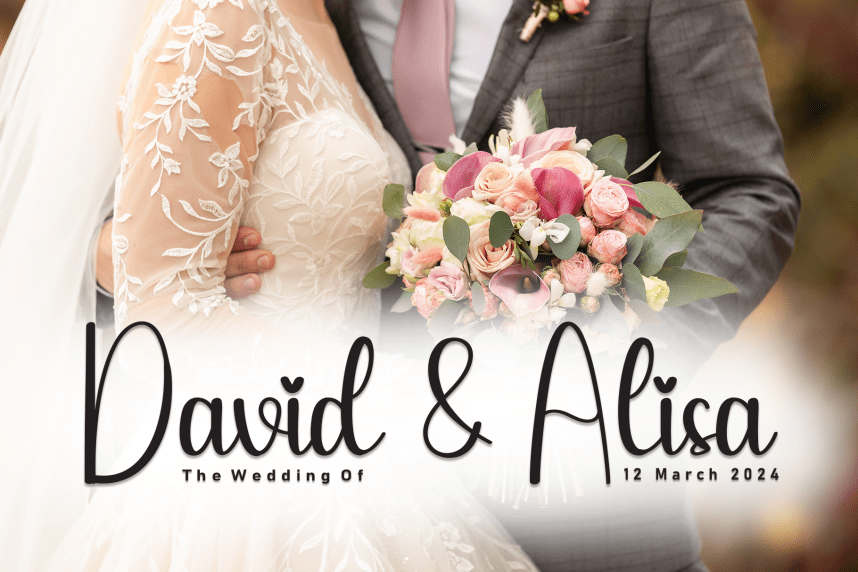
Camping – Modern Simple Font
Camping – Modern Simple Font is a sweet and friendly handwritten display font. Cute and fun, this font is ideal for writing wedding invitations, cards, or any other design that might need a playful touch!